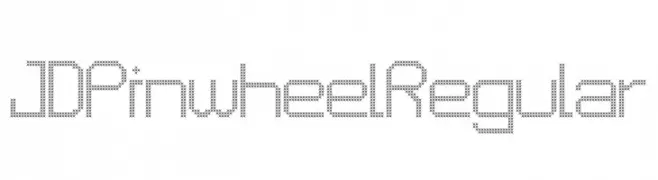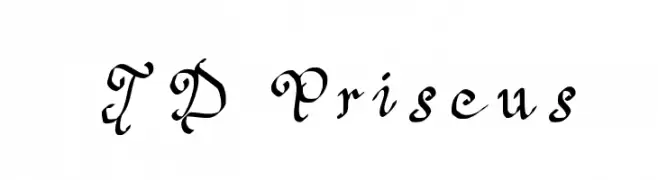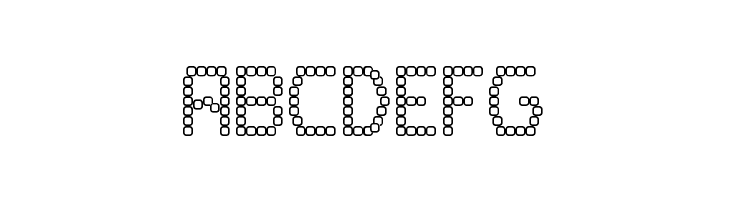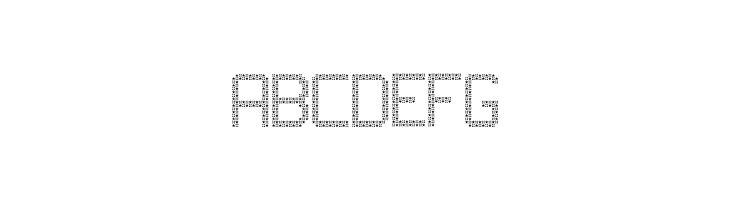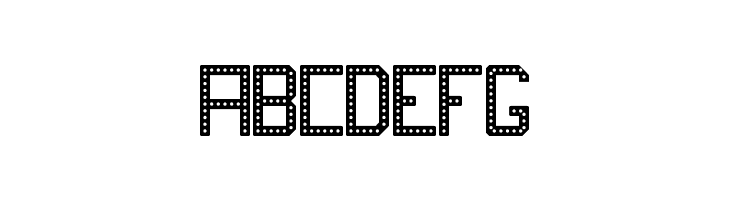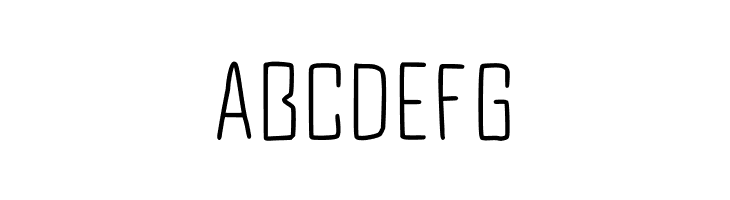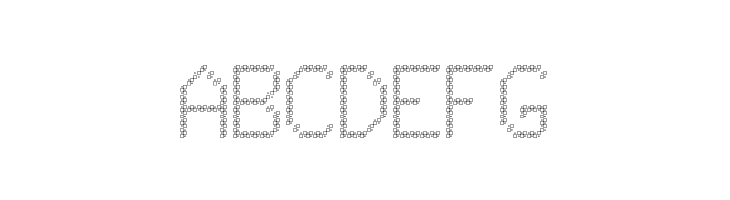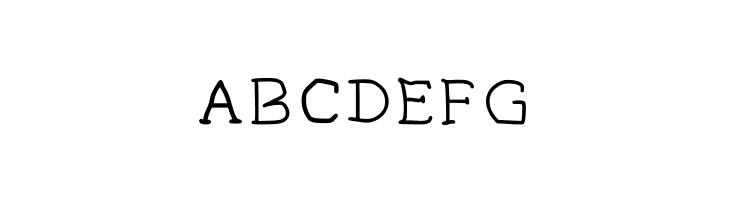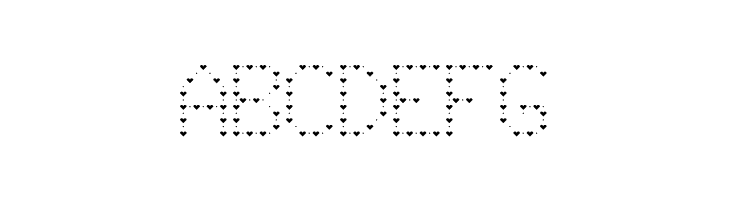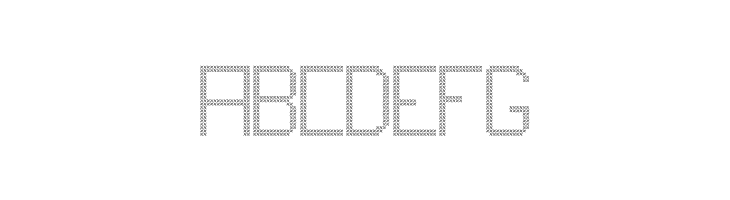
( Jecko Development - www.jeckodevelopment.com/ )
A decorative font made of heart shapes, perfect for romantic and playful designs.
( Fonts by Jecko Development )
A pixelated, digital-style font with a retro, blocky aesthetic.
( Jecko Development - www.jeckodevelopment.com )
A geometric, textured font with a pinwheel pattern, offering a modern and decorative style.
( Jecko Development - www.jeckodevelopment.com )
An ornate and decorative font with intricate, flowing letterforms.
( www.jeckodevelopment.com/ )
A pixelated, square-based font with a modern, digital aesthetic.